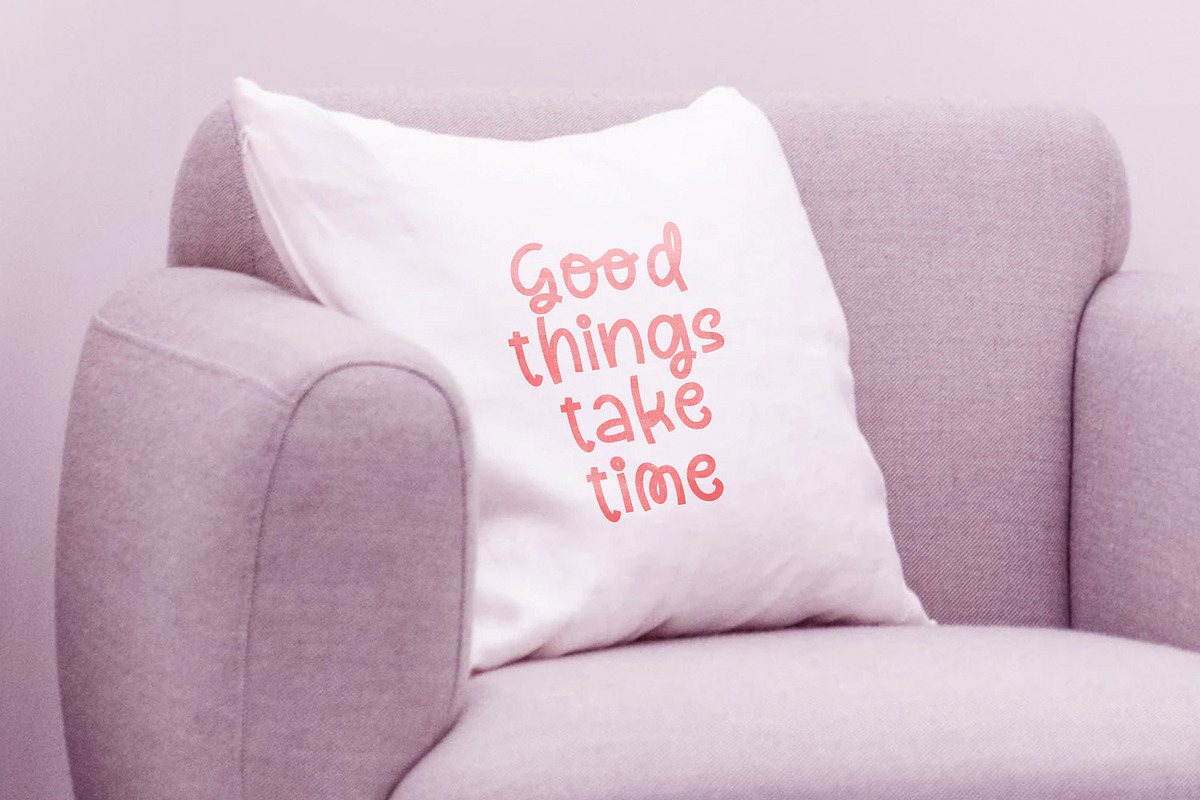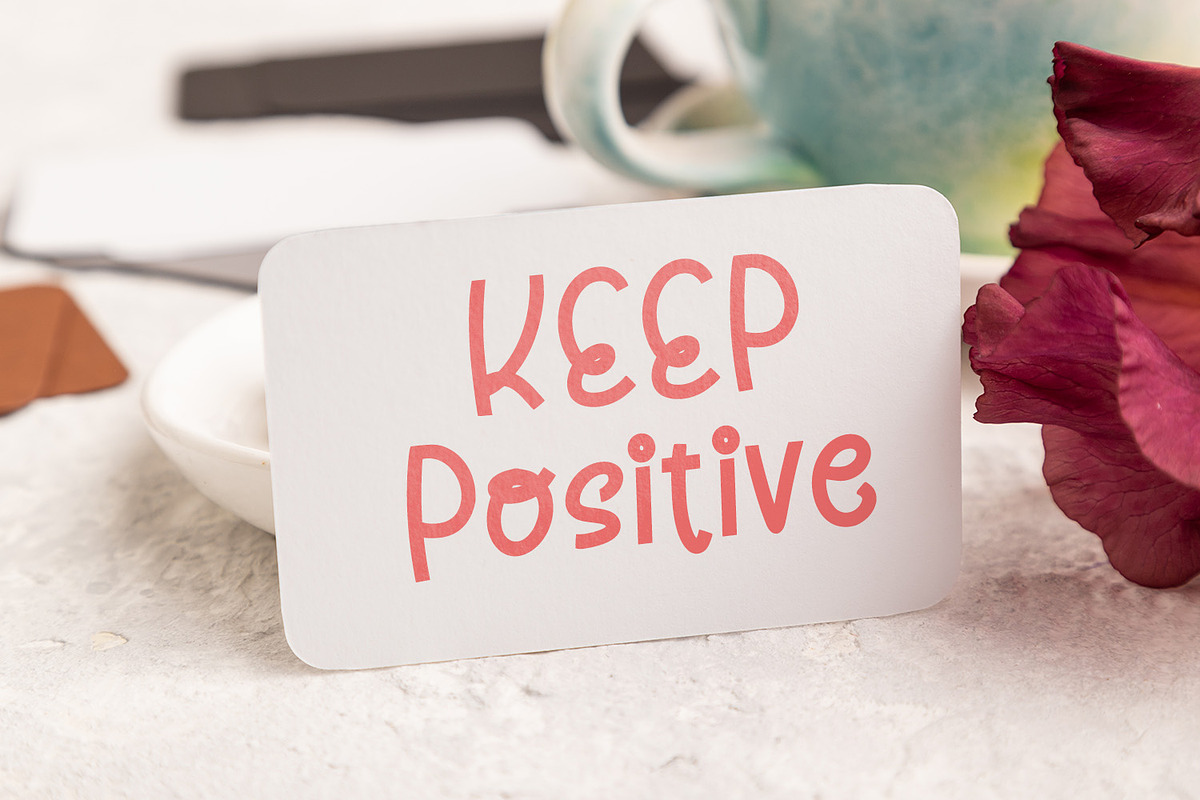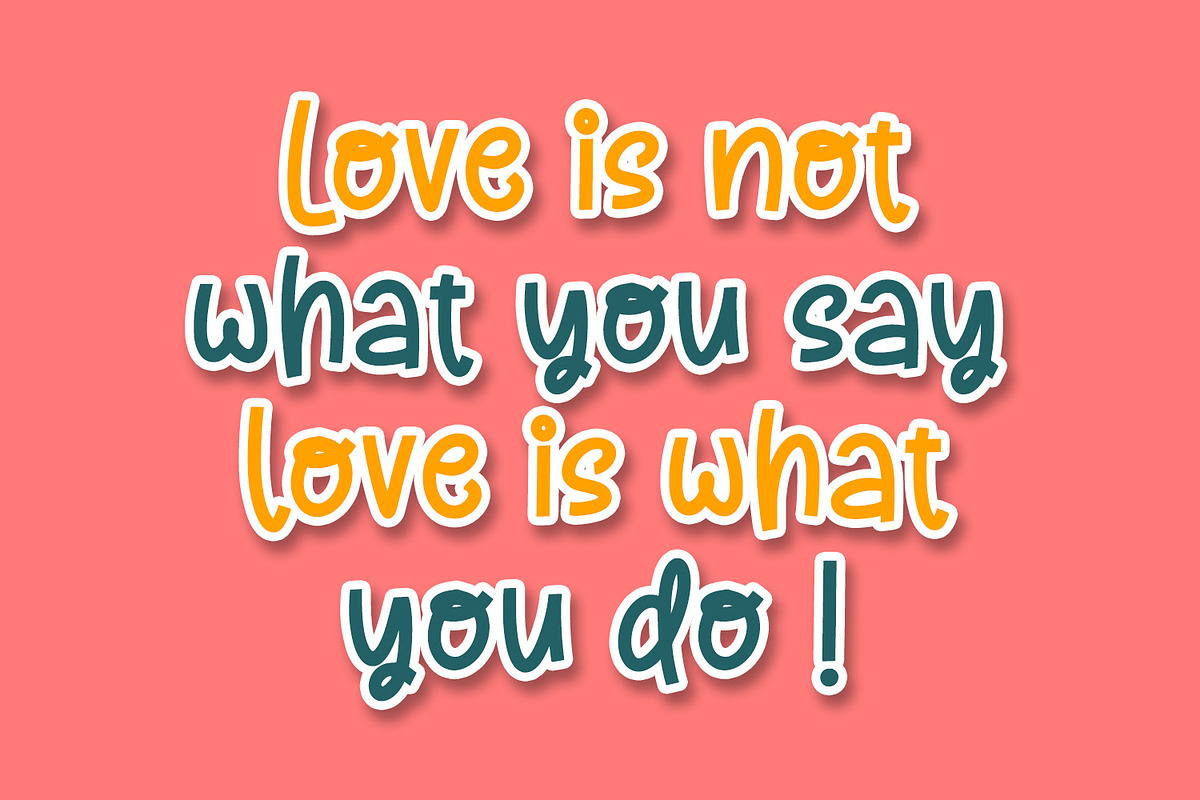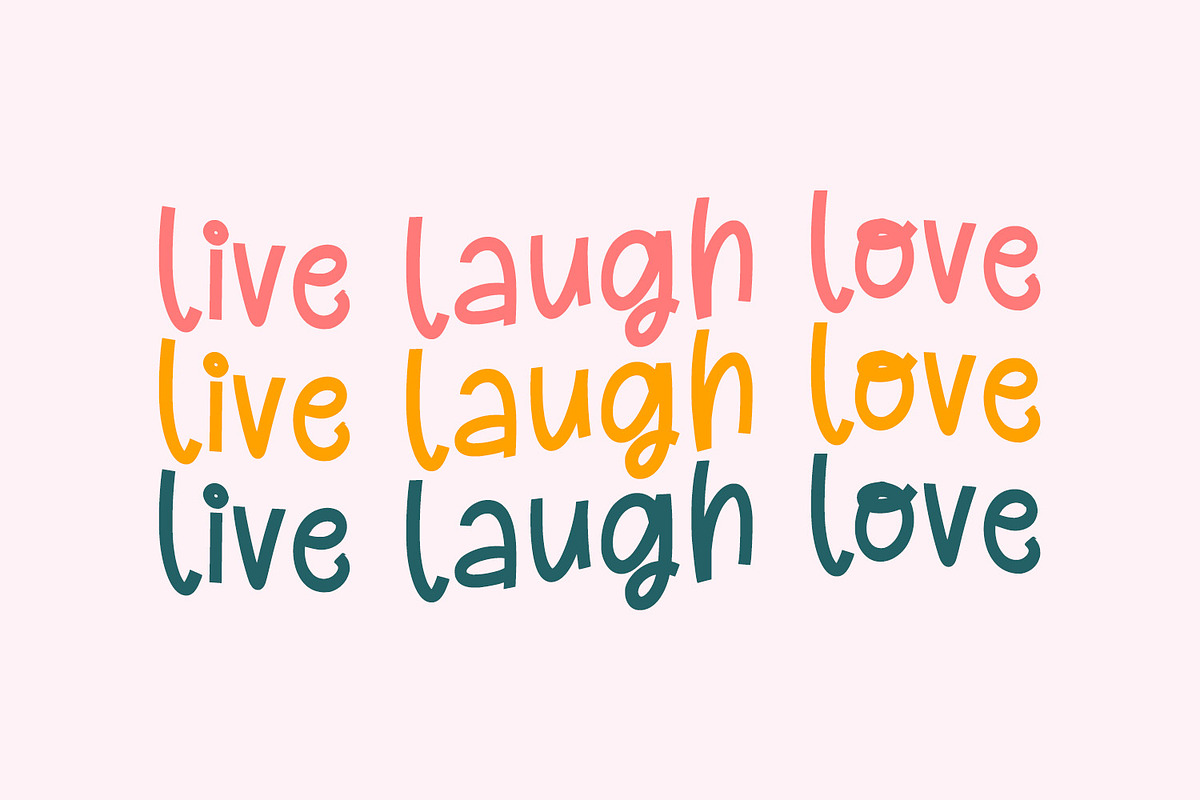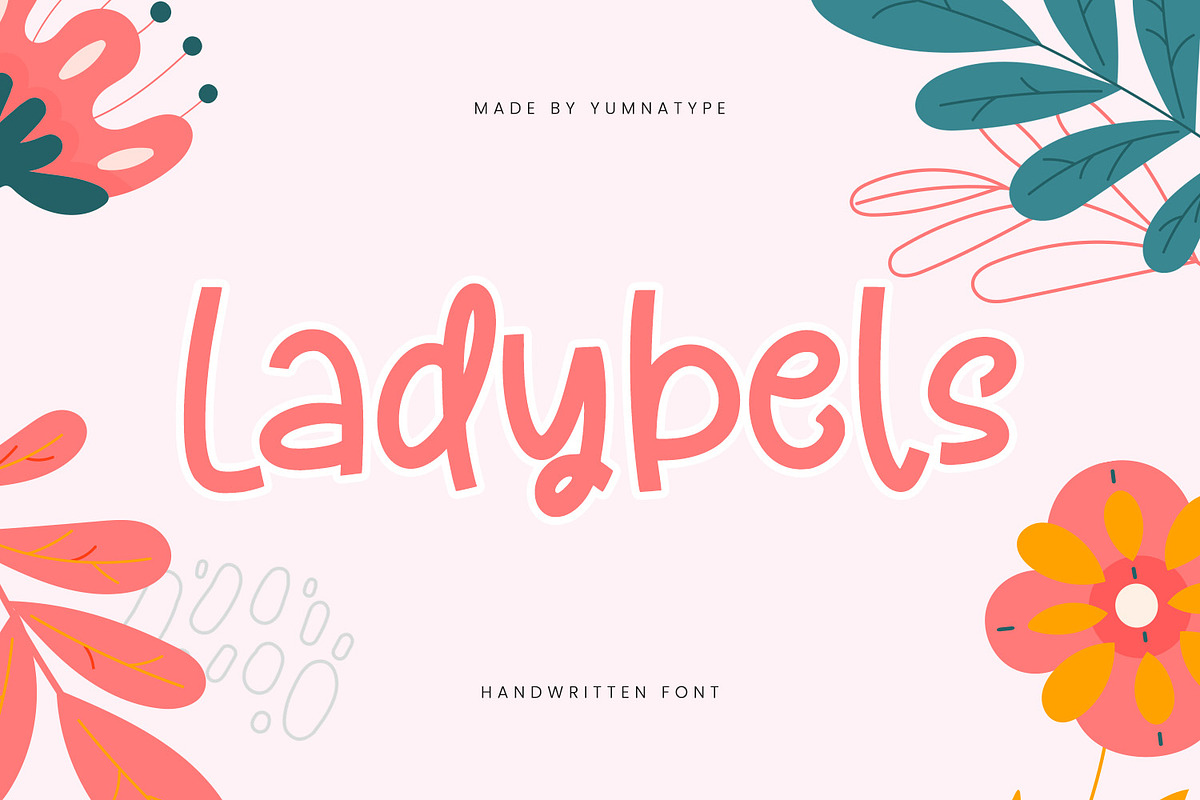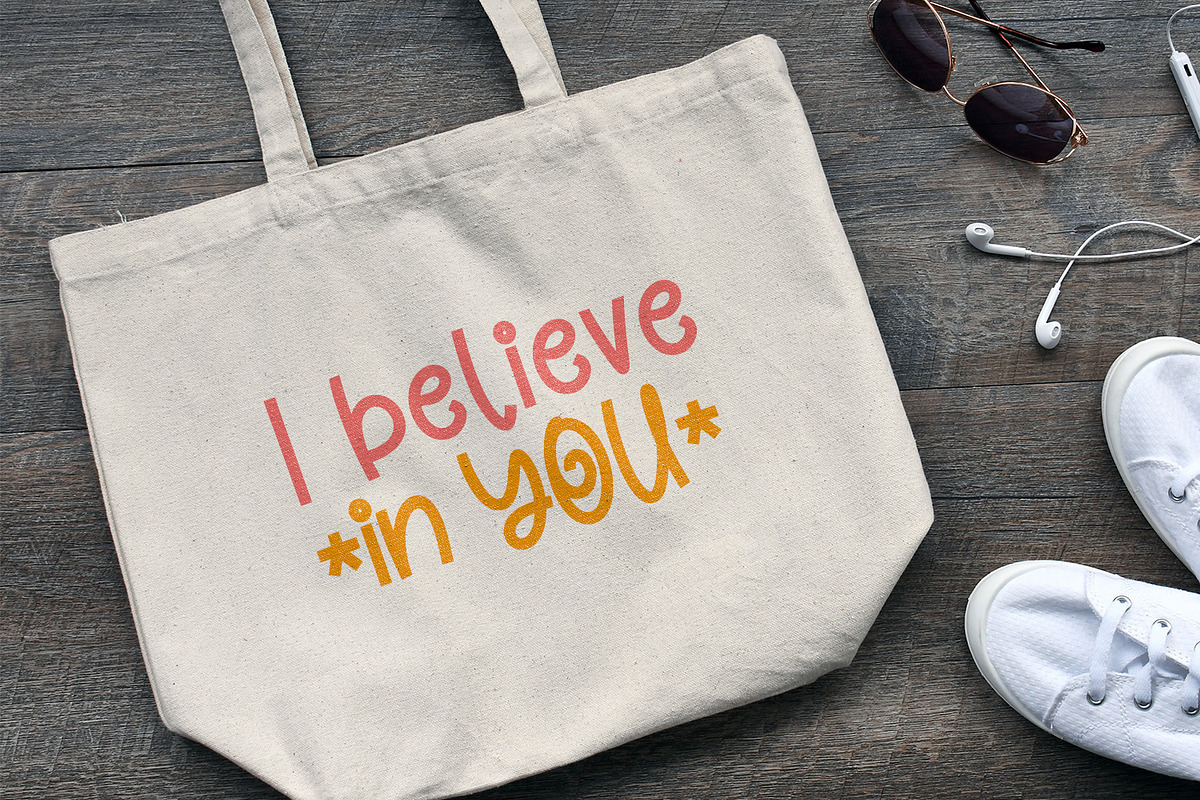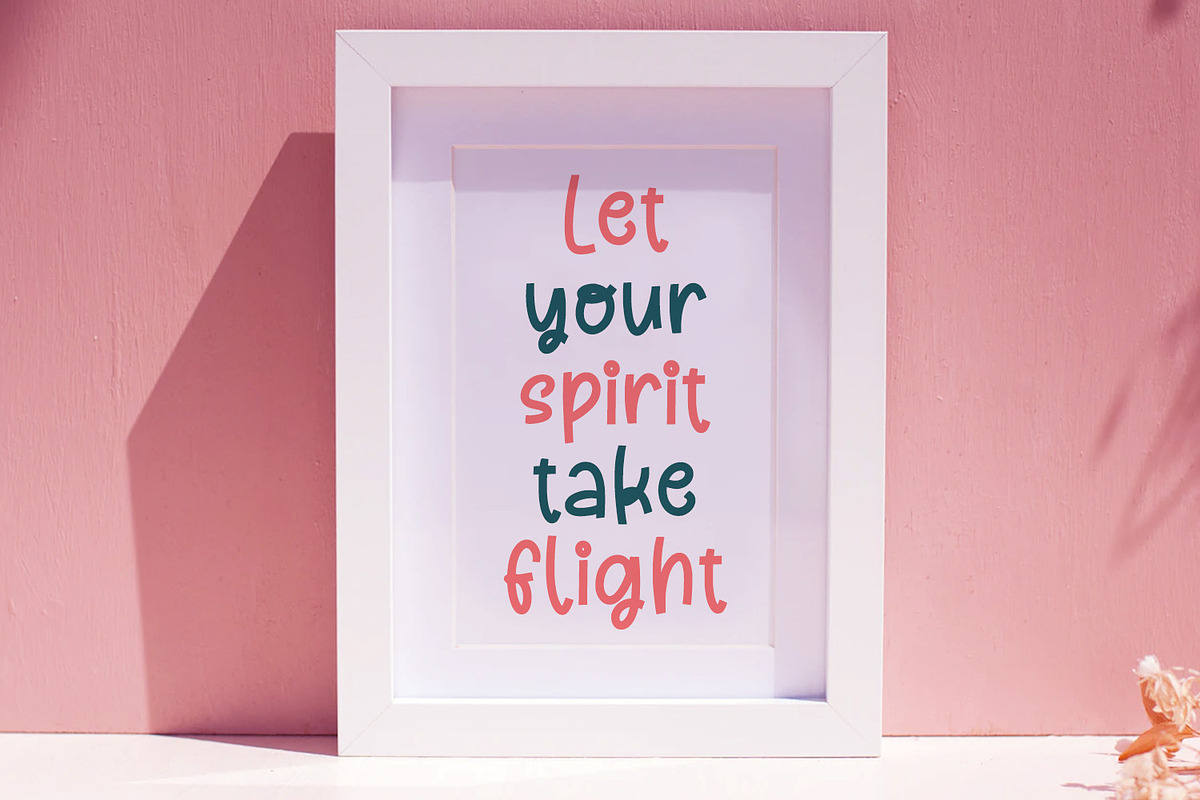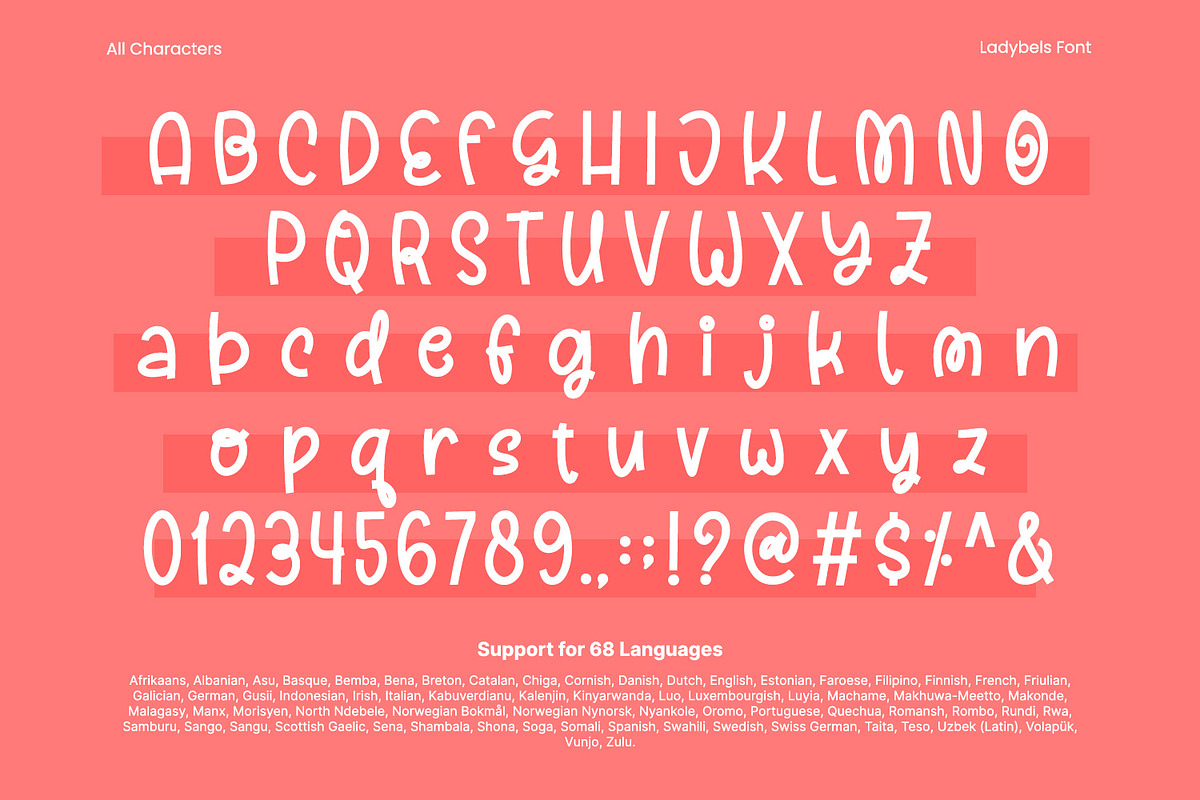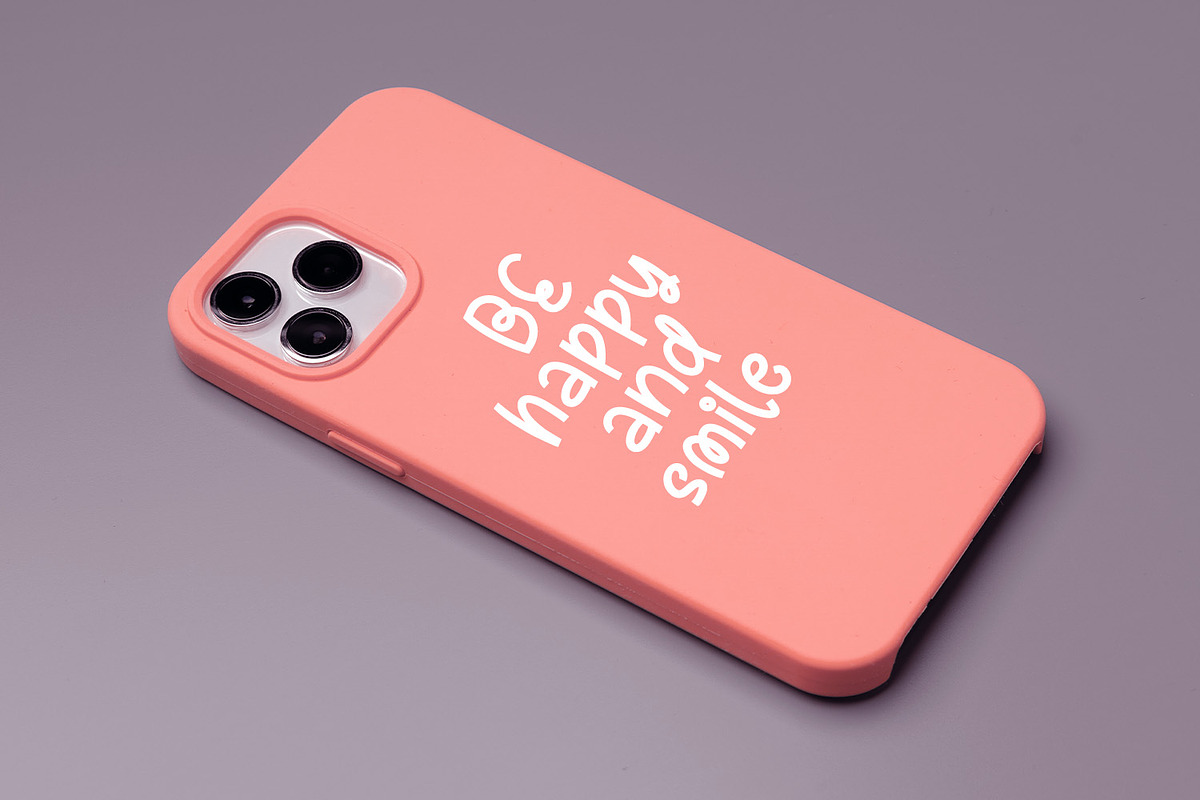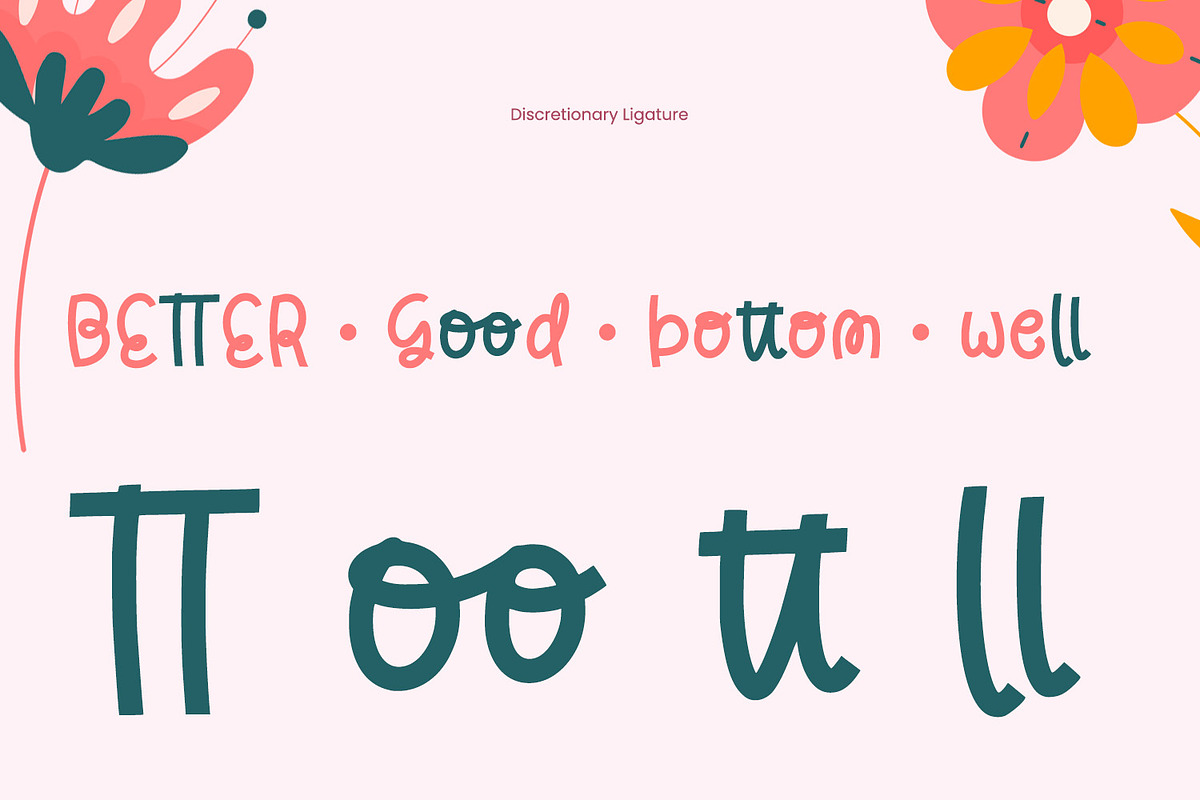
Ladybels
Ladybels is a delightful script font that brings a sense of playful elegance to your designs. The playful style of Ladybels is characterized by its smooth, rounded shapes, giving each letter a friendly and approachable feel. The rounded contours create a harmonious flow, making it ideal for projects that require a soft and inviting aesthetic.
Its light weight ensures readability and versatility, making it suitable for both headlines and longer text passages. In addition, enjoy the features here.
Ladybels fits in headlines, logos, posters, flyers, branding materials, print media, editorial layouts, and many more designs. Find out more ways to use this font by taking a look at the font preview.